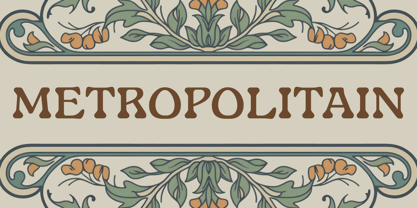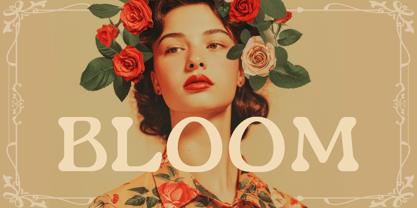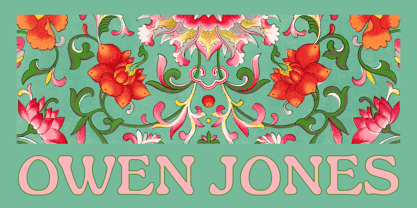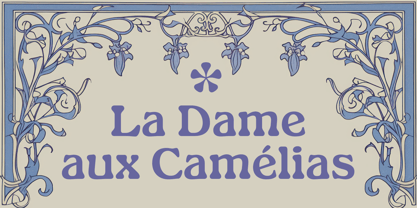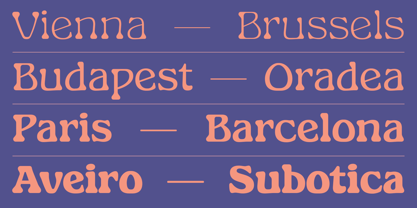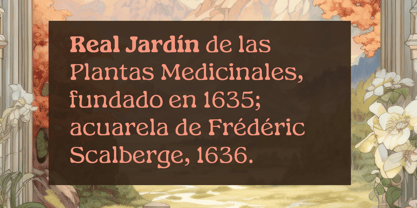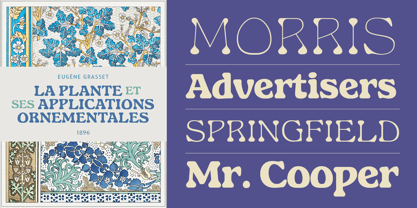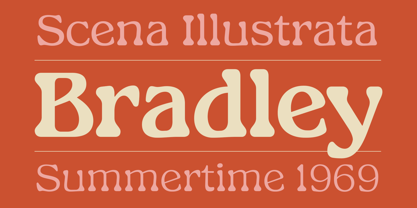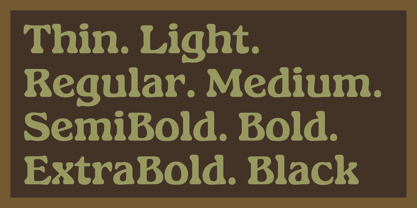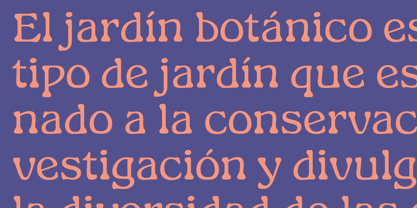
Gardino
The Gardino Font Family was designed by Nasir Udin and published by Nasir Udin. Gardino contains 8 styles and family package options. More about this family
Gardino is a serif family of eight fonts inspired by hand-letter works and typefaces from the Art Nouveau era, especially Radium (Ludwig & Mayer, 1904), Arnold Bocklin (Otto Weisert, 1904) & Hobo (ATF, 1910). It comes in eight weights from thin to black. Its mixture of weights provides a wide range of styles that will help you find the best retro vibes of your projects, for headlines or a short paragraph. It is well suited for book covers, magazines, branding, advertising and more.